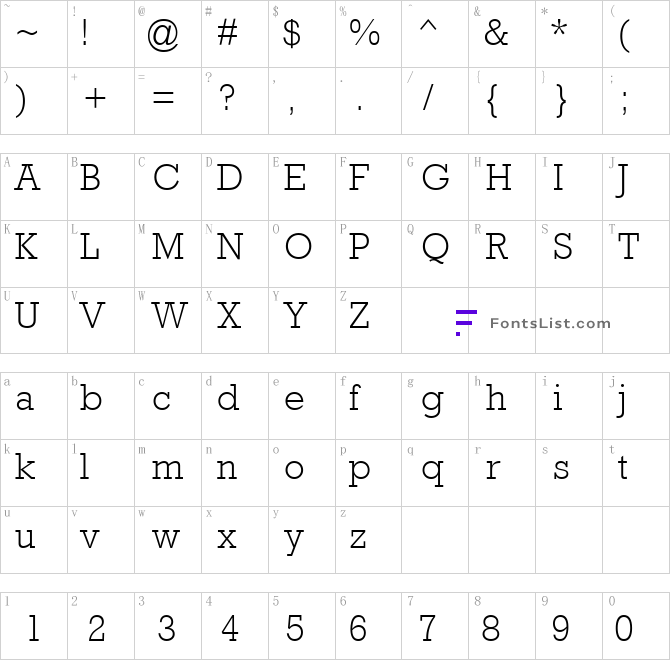
- Font Name:Astute Light SSi
Astute-Light-SSi-Light.ttf is a very beautiful artistic font, Astute-Light-SSi-Light.ttf is widely used in the design and printing of various books and pictures,Astute-Light-SSi-Light.ttf has a strong visual impact,Astute-Light-SSi-Light.ttf is a commonly used font in newspapers, magazines and books, and is used in posters, e-commerce Poster design, store design, logo design, font design and other fields.Astute-Light-SSi-Light.